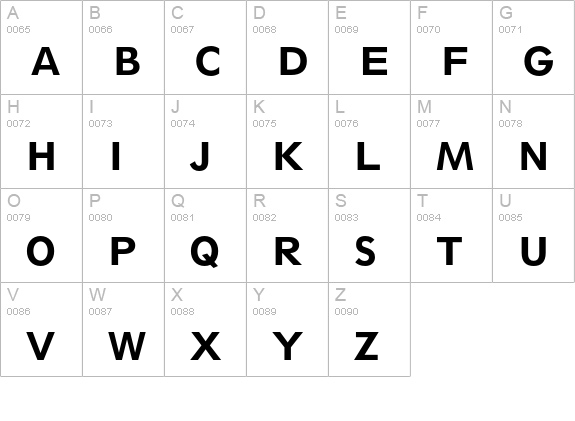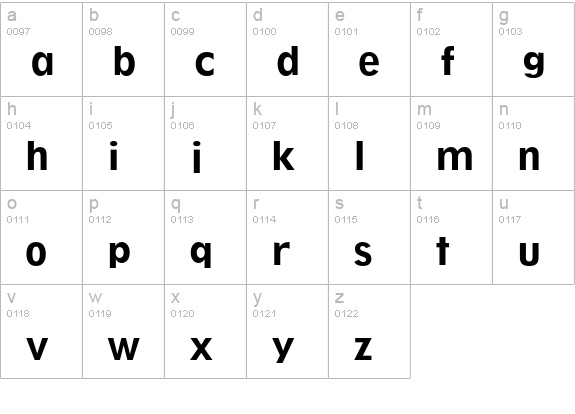
Spartan Heavy Classified Font Details
Spartan Heavy Classified is a heavy, high-impact variant in the Spartan typeface family \xE2\x80\x94 well suited to high-impact headlines, posters, and display advertising.
Introducing Spartan Heavy Classified, a striking and powerful font that exudes strength and resilience. This font is designed for those seeking a bold and impactful typeface that commands attention and makes a statement. With its thick, robust letterforms, Spartan Heavy Classified is perfect for headlines, titles, and branding projects that require a strong and impactful visual presence. Its unique design combines sharp edges with subtle curves, creating a harmonious balance that catches the eye and leaves a lasting impression. What sets Spartan Heavy Classified apart is not only its impressive aesthetics, but also its versatility. Whether you're working on a logo design for a sportswear brand, a military-themed project, or even a movie poster, this font will effortlessly convey a sense of power and determination. And the best part? Spartan Heavy Classified is completely free! You can easily download it at FontsMarket.com, a trusted source for high-quality fonts. This means that you can enhance your designs without breaking the bank or compromising on quality. It's a win-win situation! So, if you're looking for a font that embodies strength, resilience, and impact, look no further than Spartan Heavy Classified. Download it for free at FontsMarket.com and unleash the power of typography in your next creative endeavor.